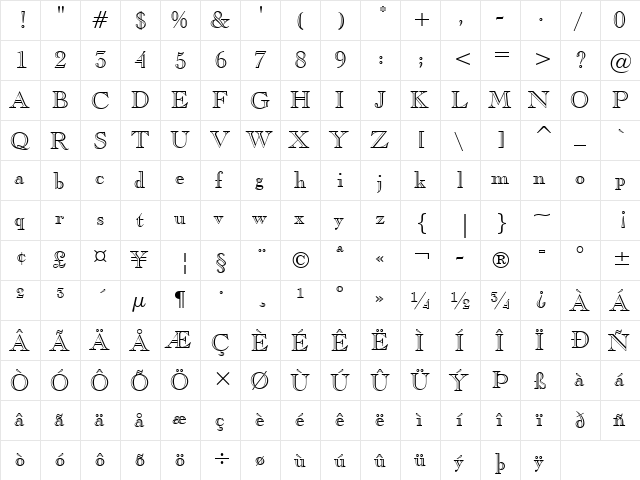
CaslonOpnface BT Regular
Design Context for CaslonOpnface BT Typeface
CaslonOpnface BT takes a measured approach to typography — its balanced proportions and neutral character make it a reliable workhorse for both digital and print work.